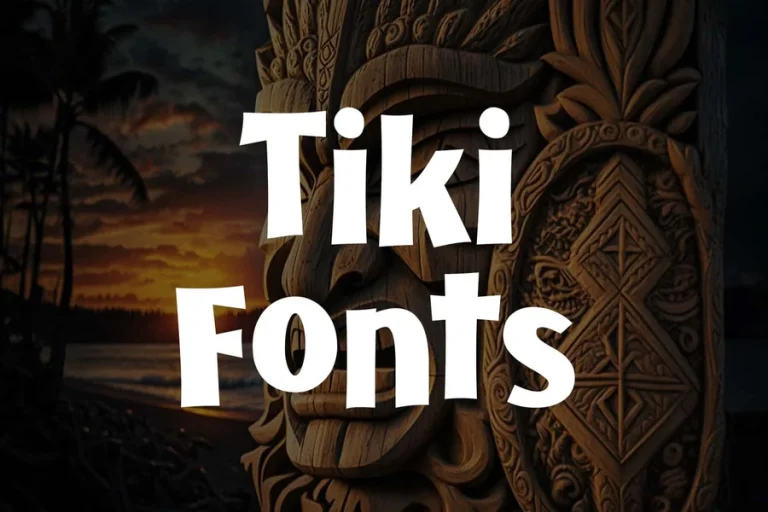
Tiki Font Style Guide for Creative Island Designs
Tiki font is a decorative lettering style inspired by island culture. It reflects the spirit of Polynesia Hawaii and tropical adventure. The shapes often look hand carved. The letters feel bold playful and full of motion. When people see tiki font they think of palm trees warm beaches ocean breeze and colorful festivals.
Tiki font is not just about style. It carries a mood. It brings a sense of escape and celebration. Designers use tiki font to transport viewers to a sunny place even when they are far away. That emotional connection is what makes this font special.
The history of tiki font comes from traditional carvings and tribal symbols. Over time designers transformed these elements into modern lettering. The result is a font that feels ancient and fresh at the same time.
Today tiki font is used across many creative fields. It appears on restaurant signs travel posters event banners product labels and digital artwork. Its presence instantly creates a tropical identity.
Tiki font stands out because it does not feel ordinary. It breaks away from formal typography. It embraces culture art and energy. That makes it perfect for brands and projects that want to feel alive and unforgettable.
When used well tiki font becomes more than decoration. It becomes part of the story. It invites people to relax explore and enjoy the moment.
How Tiki Font Shapes Branding and Visual Identity
Tiki font plays a major role in branding for tropical themes. Many beach bars cafes travel companies and resort brands rely on tiki font to define their look. The font tells customers what kind of experience to expect.
A logo made with tiki font feels friendly and welcoming. It suggests fun relaxation and adventure. This helps brands connect emotionally with their audience.
In packaging tiki font attracts attention. On a shelf full of basic designs tiki font stands out. It promises something different. It hints at flavor culture and escape.
Tiki font also works well for seasonal promotions. Summer sales island events and vacation campaigns benefit from this style. The font supports the message of warmth and excitement.
In digital branding tiki font adds personality to websites and social media graphics. It keeps content from feeling cold or corporate. Instead it feels human and joyful.
Good branding requires consistency. When tiki font is used across signs menus websites and marketing material the brand becomes recognizable. People remember it easily.
The key is balance. Tiki font works best when paired with simple clean fonts for body text. This keeps the design readable while maintaining its tropical charm.
Creative Uses of Tiki Font in Art and Events
Artists love tiki font because it offers freedom. The shapes are expressive. The curves and edges allow for creativity. Many illustrators combine tiki font with colorful artwork to create bold visual pieces.
Posters for music festivals beach parties and cultural events often feature tiki font. The font sets the tone before the event even begins. It creates excitement and anticipation.
In event decor tiki font appears on banners stage backdrops tickets and invitations. It unifies the theme and enhances the atmosphere.
Merchandise designers use tiki font on shirts hats mugs and souvenirs. These products become reminders of special moments.
Tiki font also shines in hand lettering and mural art. Artists paint large tiki style letters on walls and storefronts. These designs become local landmarks and photo spots.
In digital art tiki font is used for wallpapers thumbnails and social media content. It grabs attention in crowded feeds.
Because tiki font is so expressive it encourages creative exploration. No two designs look the same. Each artist brings their own interpretation to the style.
Choosing the Right Tiki Font for Your Project
Not all tiki fonts are the same. Some look bold and heavy. Others feel playful and soft. Choosing the right one depends on the message you want to send.
If your project is about adventure and energy choose a strong dynamic tiki font. If your project is about relaxation and comfort choose a softer rounded tiki font.
Look at the details. Some tiki fonts have sharp angles that feel powerful. Others have smooth curves that feel friendly.
Consider your audience. Younger audiences may enjoy bright playful designs. Older audiences may prefer a more traditional island look.
Test your font in different sizes. Tiki font should remain clear even when scaled down.
Check how it looks on different backgrounds. High contrast improves readability.
Do not rush the decision. The right font strengthens the entire design.
How Designers Work With Tiki Font
Designers treat tiki font as a focal element. They build the layout around it. Colors shapes and images are chosen to support the font.
They often use tropical color palettes. Blues greens yellows and coral tones work well.
Textures such as wood grain sand and fabric add depth. These textures echo the natural roots of tiki font.
Spacing is important. Giving the letters room to breathe makes the design feel open and inviting.
Designers also adjust letter spacing and height for balance. Small changes can improve harmony.
In digital design tiki font is optimized for screens. Designers ensure the font remains sharp and readable on mobile devices.
Through careful planning tiki font becomes the heart of the visual message.
The Lasting Appeal of Tiki Font in Modern Design
Tiki font has survived many design trends. Its appeal remains strong because it connects people to emotion and experience.
In a fast paced digital world tiki font reminds people to slow down and enjoy life.
Its cultural roots give it depth. Its playful nature gives it joy.
As travel and cultural appreciation grow tiki font will continue to inspire designers.
It represents more than a look. It represents a feeling of freedom and discovery.
Final Thought
Tiki font is a powerful creative tool. It transforms ordinary designs into experiences. It brings warmth energy and personality to every project. When used with care and imagination tiki font tells stories of adventure relaxation and connection. It invites people to escape into a brighter world. For designers artists and brands tiki font remains one of the most expressive and joyful styles in visual design.